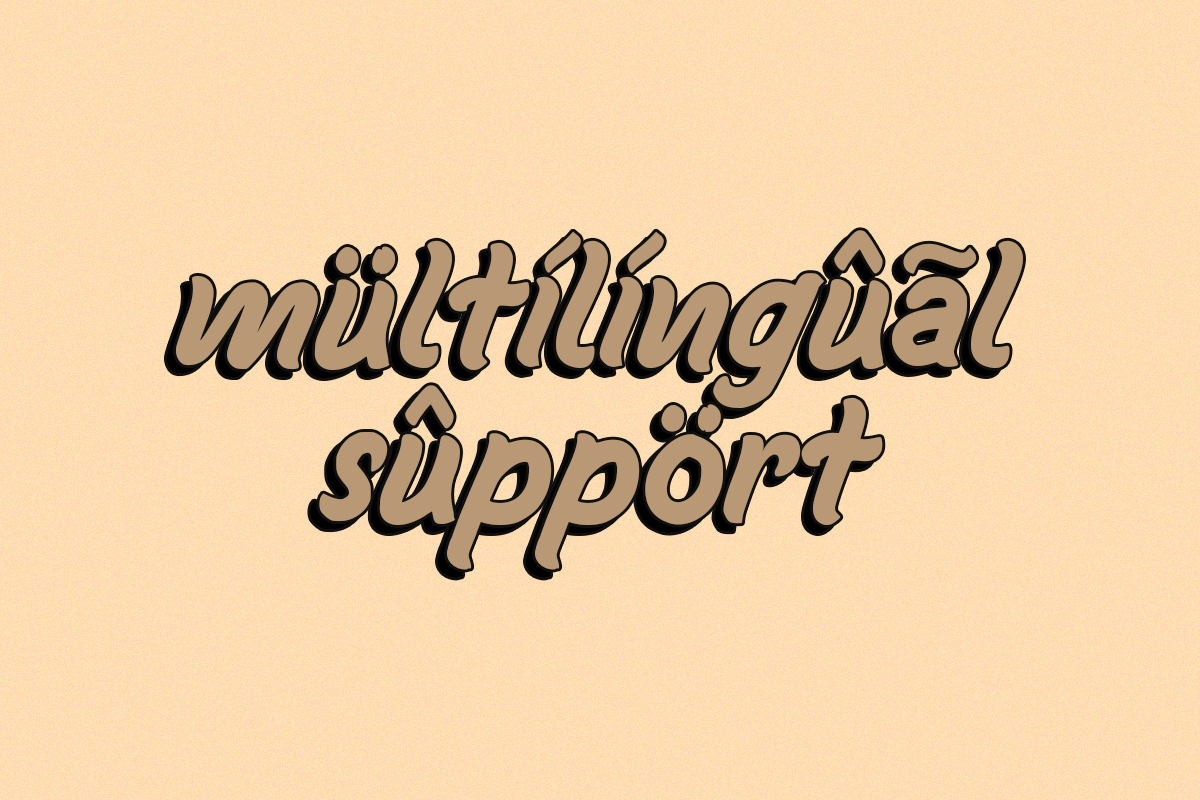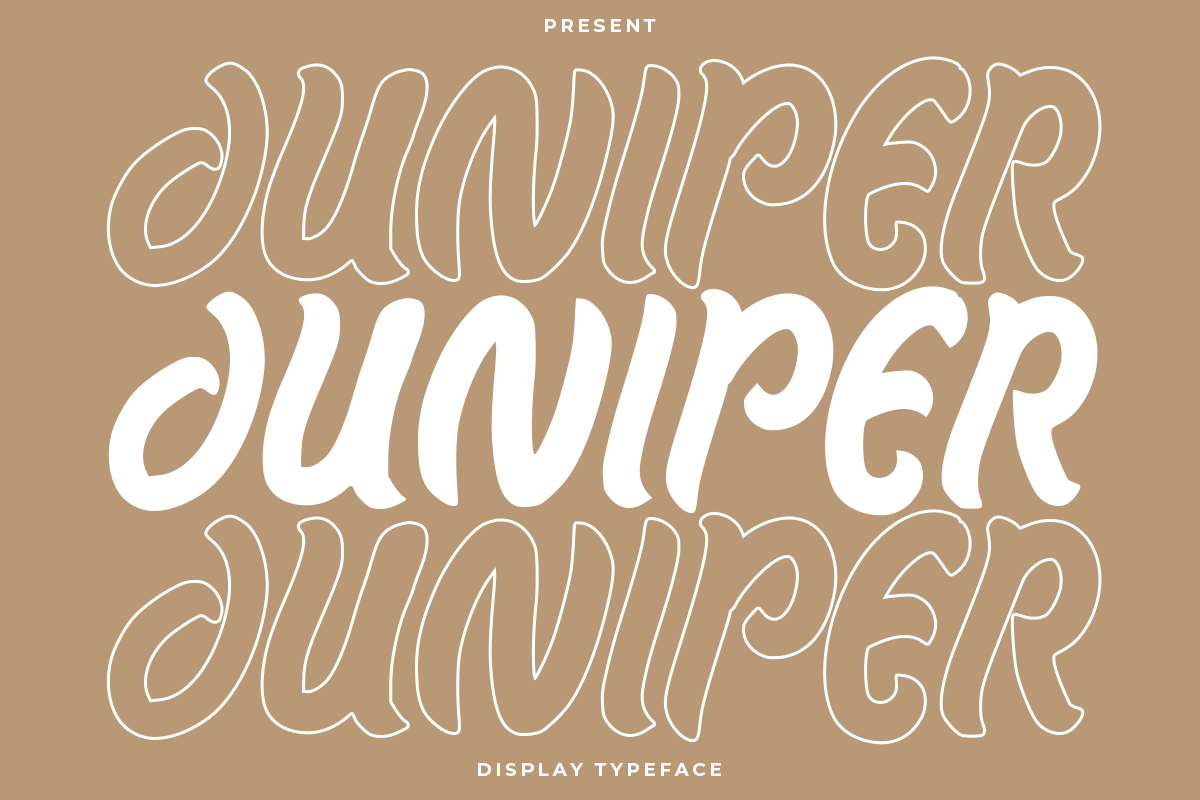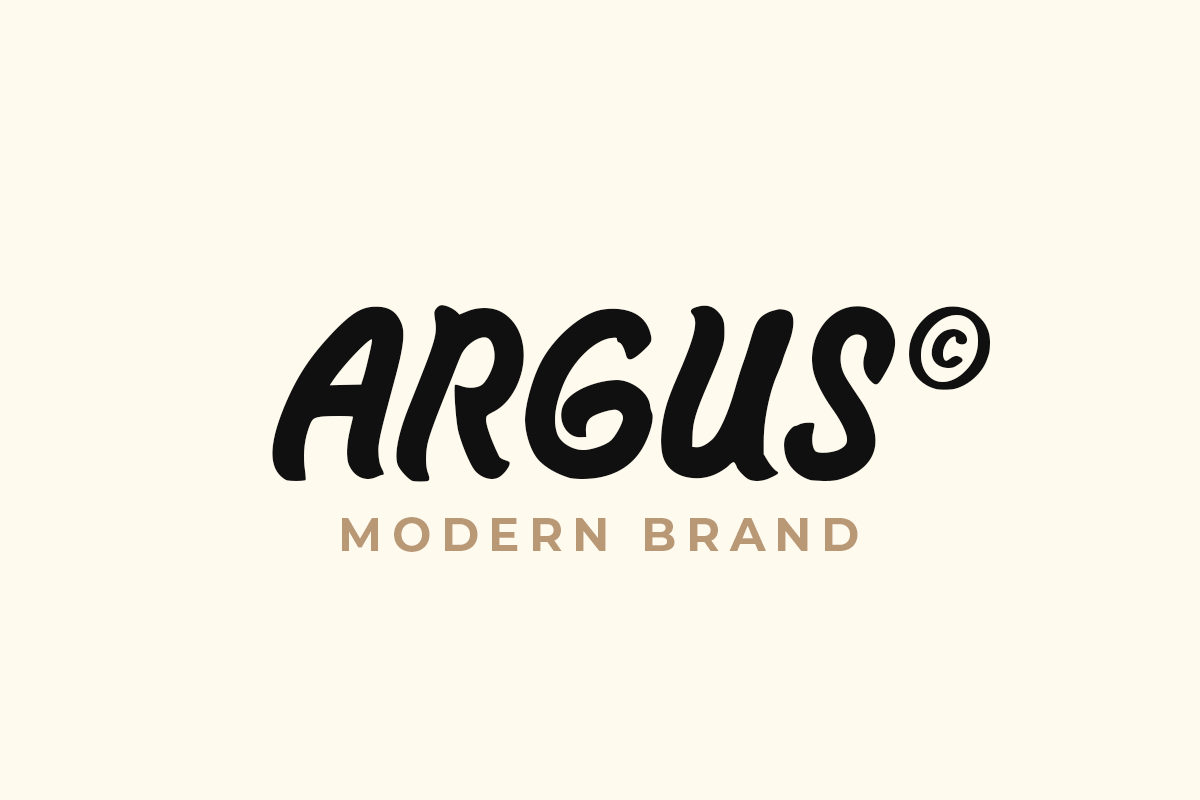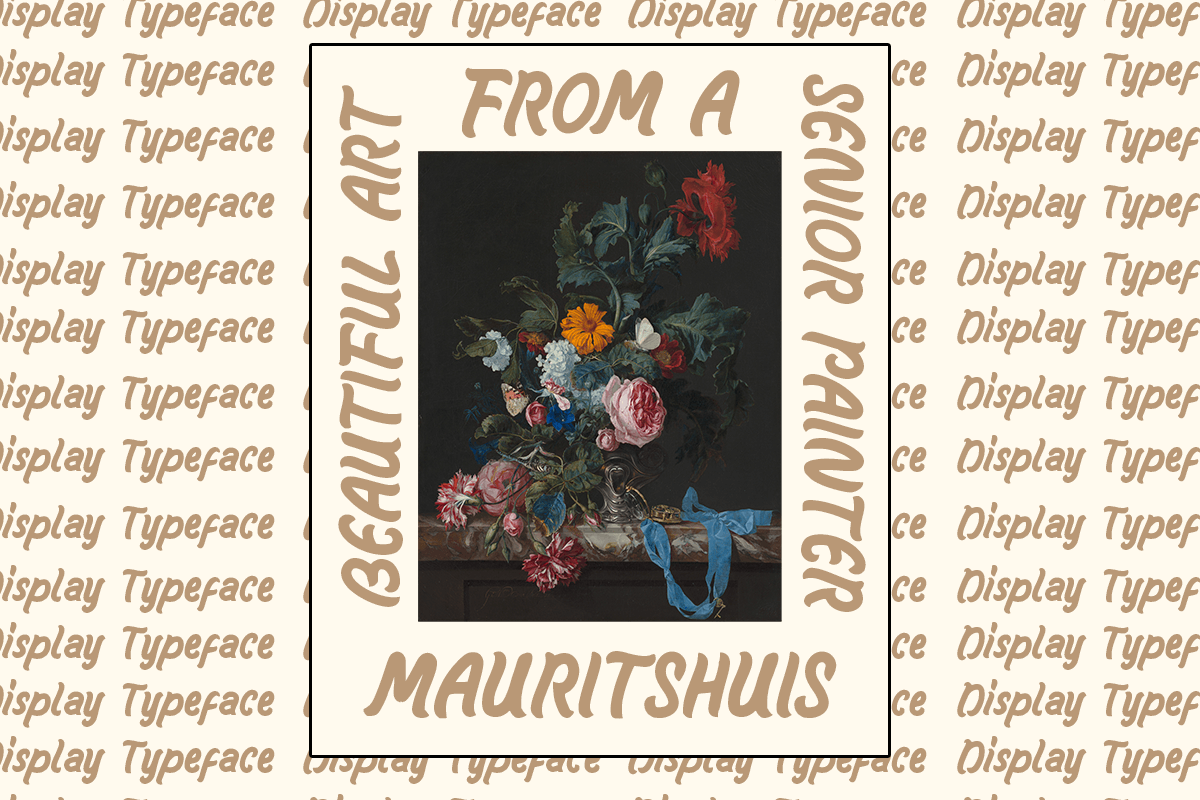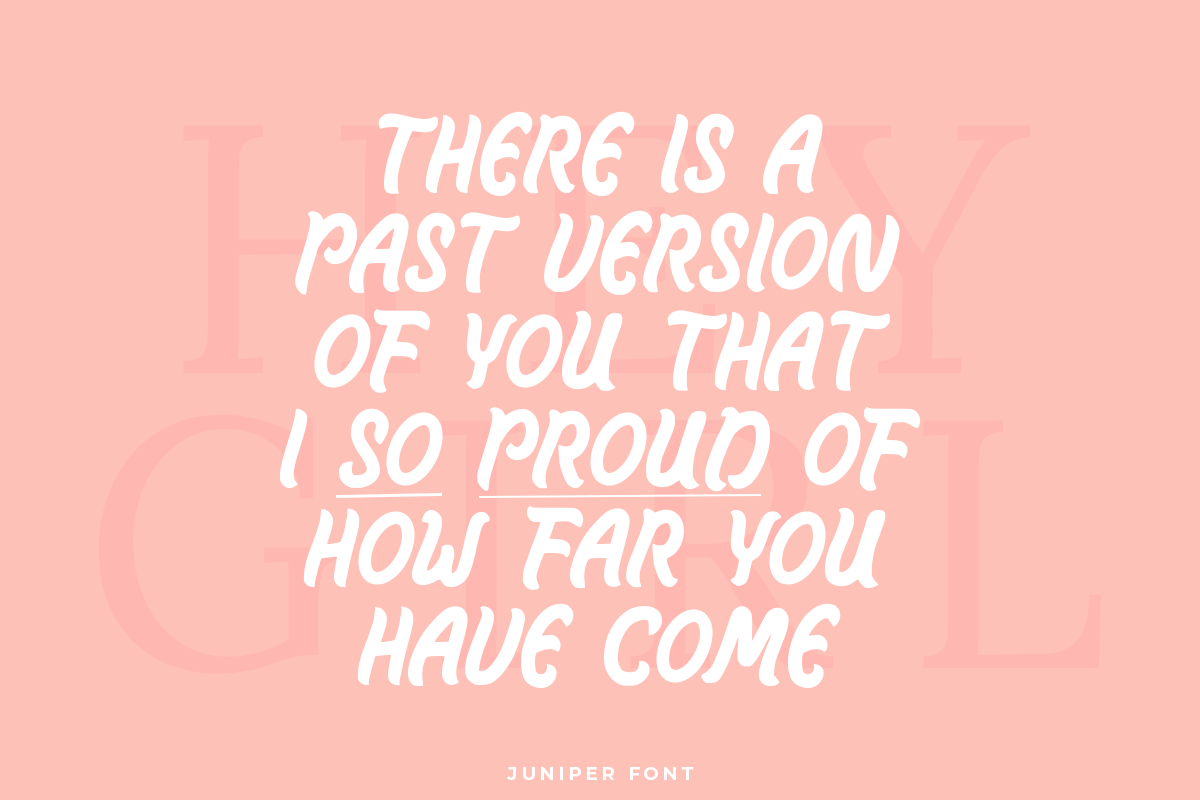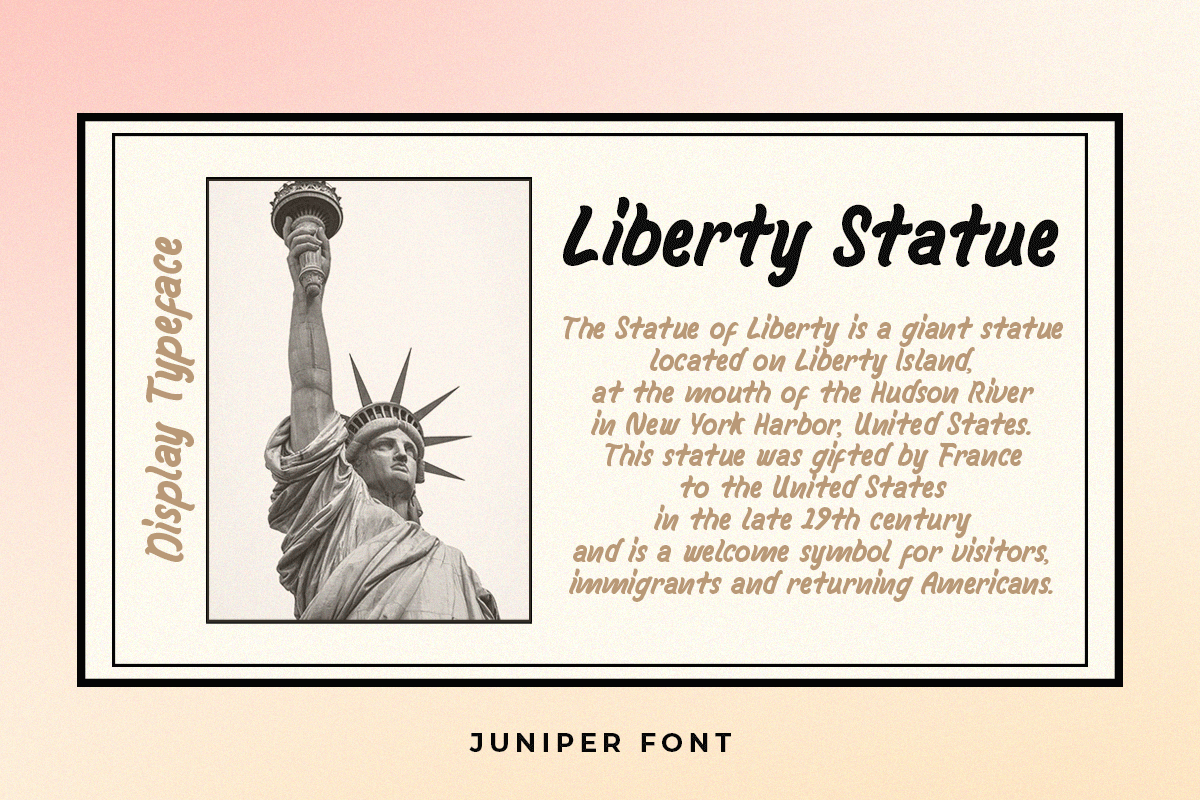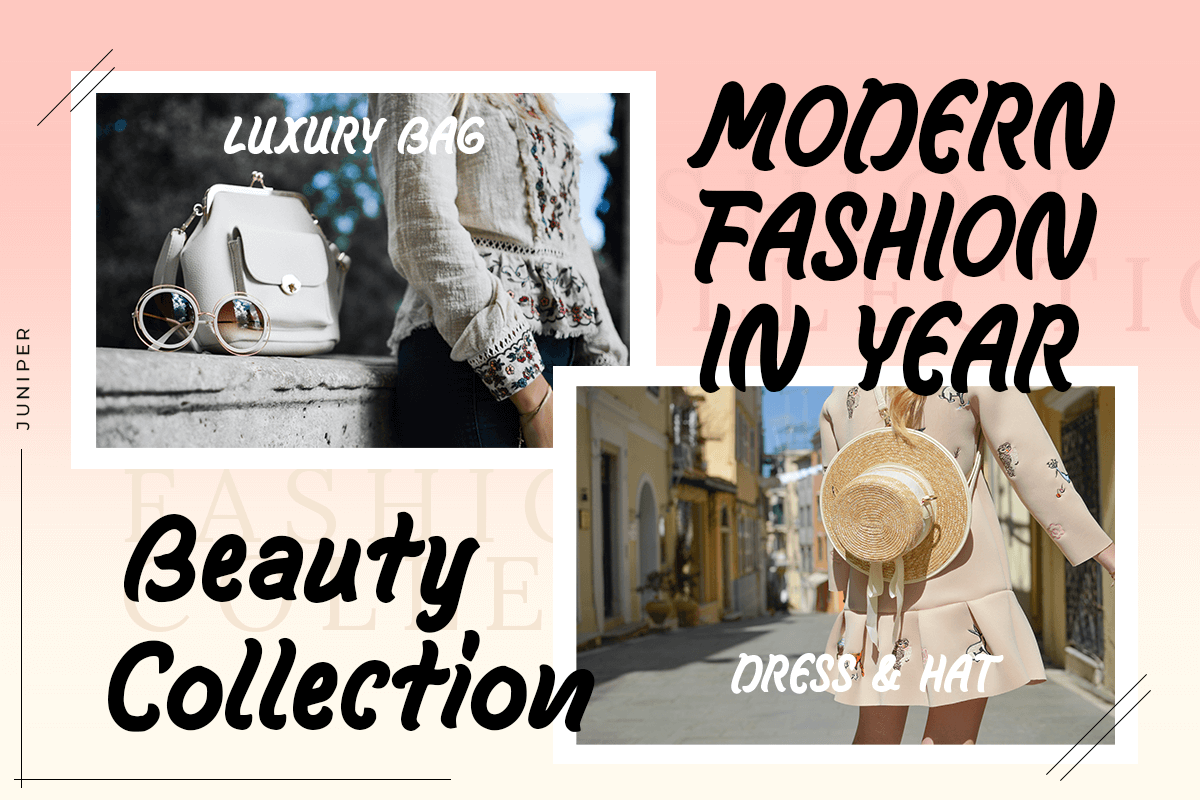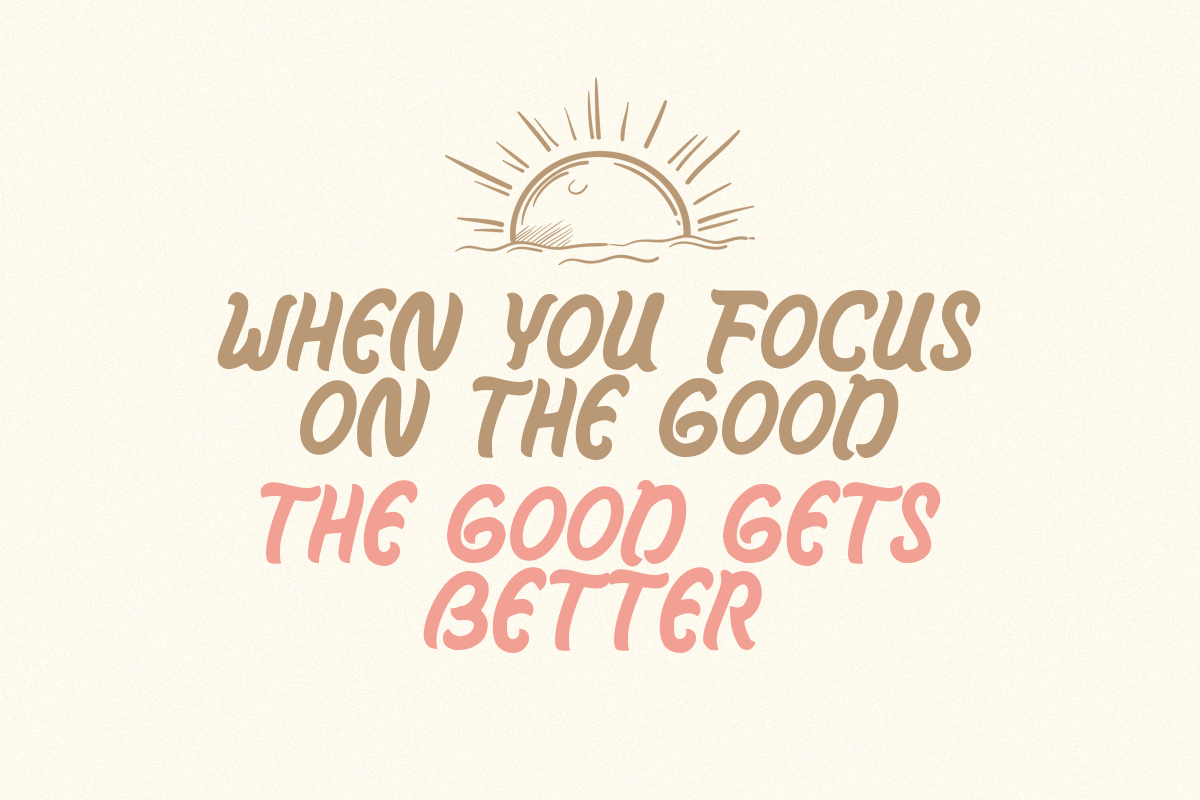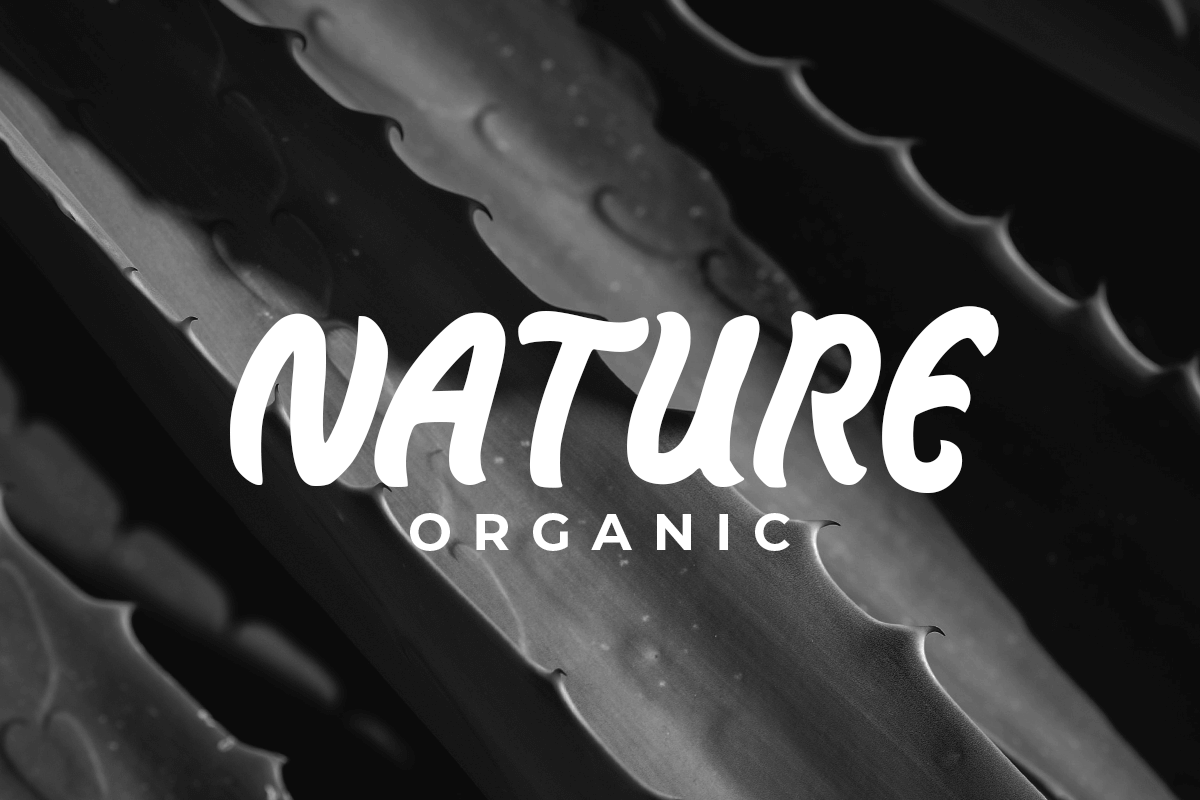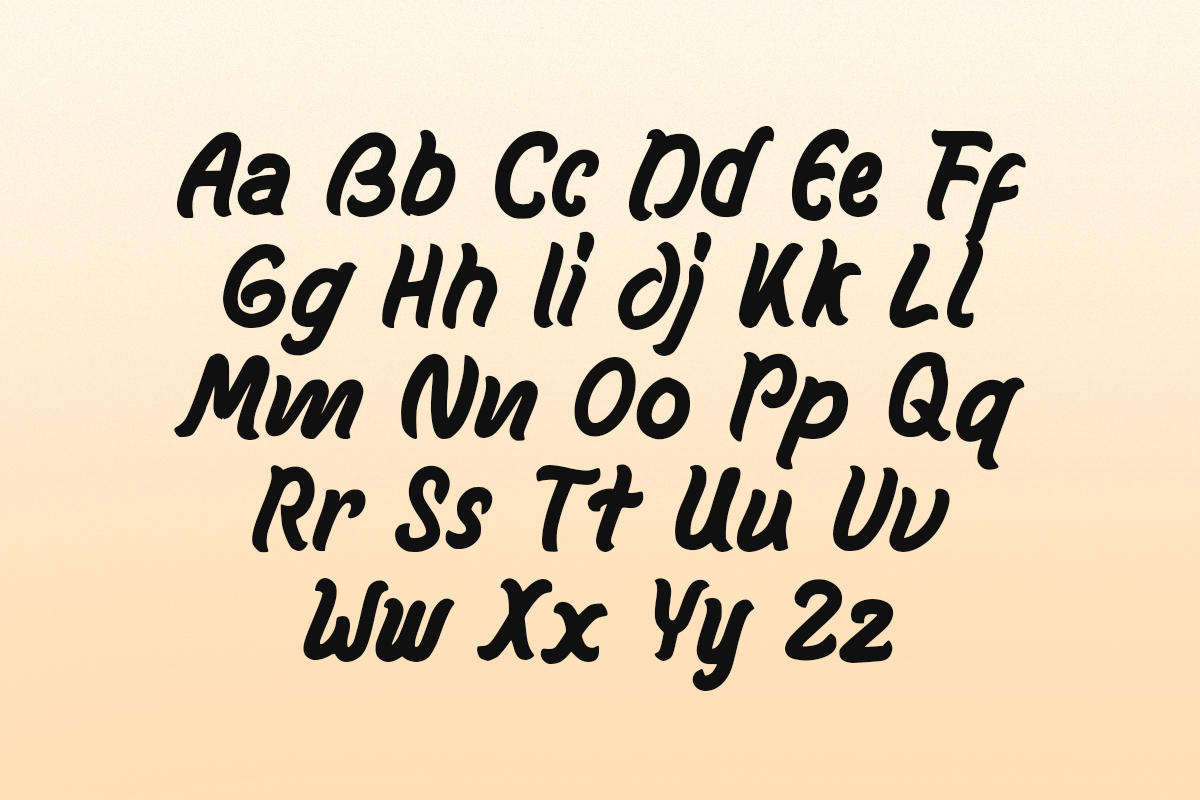
Juniper
Introducing Juniper, the perfect display typeface for your creative designs.
This unique font is designed with a clean and modern feel, making it perfect for use in a variety of designs. Whether you’re creating posters, flyers, logos, or anything else, Juniper is the perfect choice for making your designs stand out. Its display style adds a bold touch that will capture your audience’s attention and make your message clear. With its elegant lines and curves, Juniper is perfect for creating designs that are both professional and stylish.